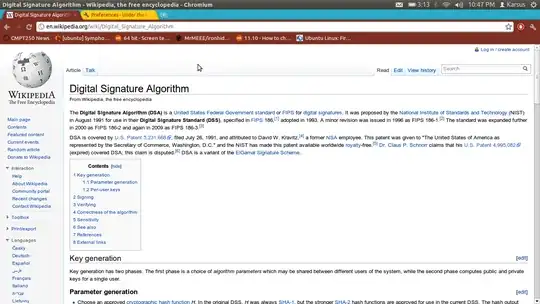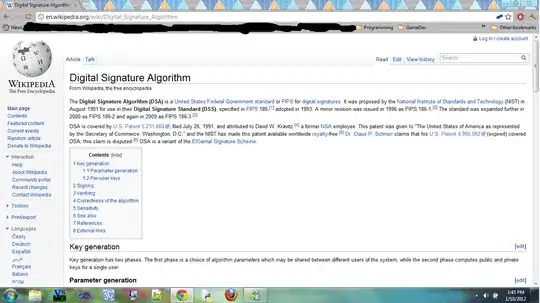
I'm very new to Linux as in I've only been using it for about a week. My problem is fonts are incredibly blurry and it's very difficult to read long periods of time. I've tried to change fonts.conf file and added this:
I also tried to use gnome tweak tool but hinting/ Anti-aliasing doesn't have any effect on browsers Chrome/Chromium/Firefox.
The methods I mentioned made some differences but the problem still exists, is there a way to get rid of this blurry effect or am I doomed for eternity?
Windows 7:
Ubuntu 11.10:
The default Sans font, is Ugly, imho. The Arial, Tribuchet MS and some other MS fonts, don't render properly, Tribuchet MS has a problem with e. An extra line on top. I hate it.
The good windows fonts Tahoma, Segoe, Callbiri, Cambria all render poorly, due to lack of cleartype.
Trying to use this xml, in .fonts.conf that is supposed to magically make rendering smooth, does nothing more than turn on sub pixel smoothing.
<?xml version="1.0"?> <!DOCTYPE fontconfig SYSTEM "fonts.dtd"> <fontconfig> <match target="font"> <edit name="autohint" mode="assign"> <bool>true</bool> </edit> </match> </fontconfig>
Turning on sub-pixel smoothing makes the font bold at the cost of clear shapes, it is a turn off. The otherwise awesome Monospace font also looks bad.
What is the best font I can have on my Ubuntu system. It is alright if it is commercial and expensive. I could do with better font typefaces.